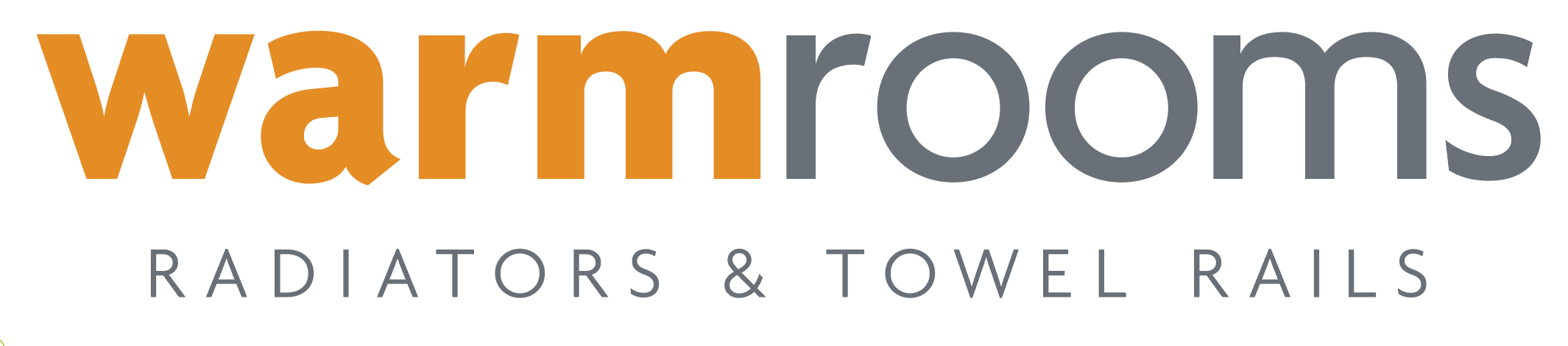
Trying to identify this to recreate - exhausted all the usual suspects (warmrooms)
Tried all the usual suspects for the logo below, not sure if 2 different families or just different weights. the a and r seems to be the critical ones?